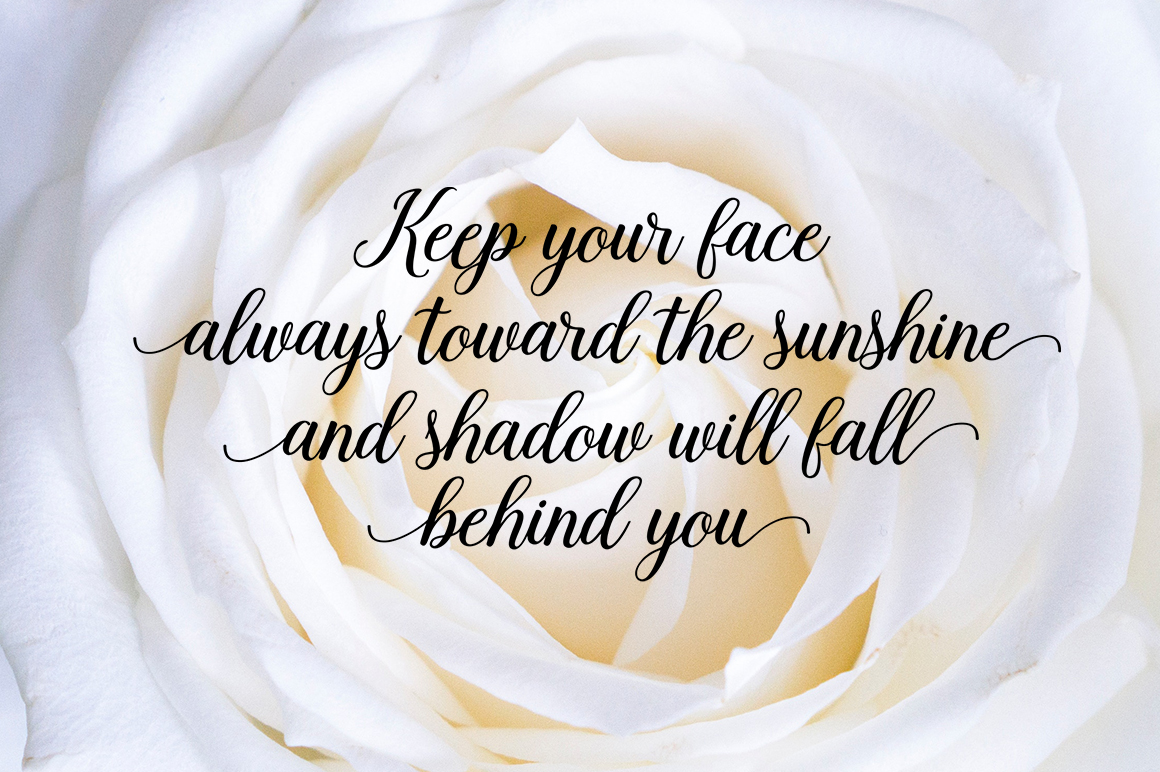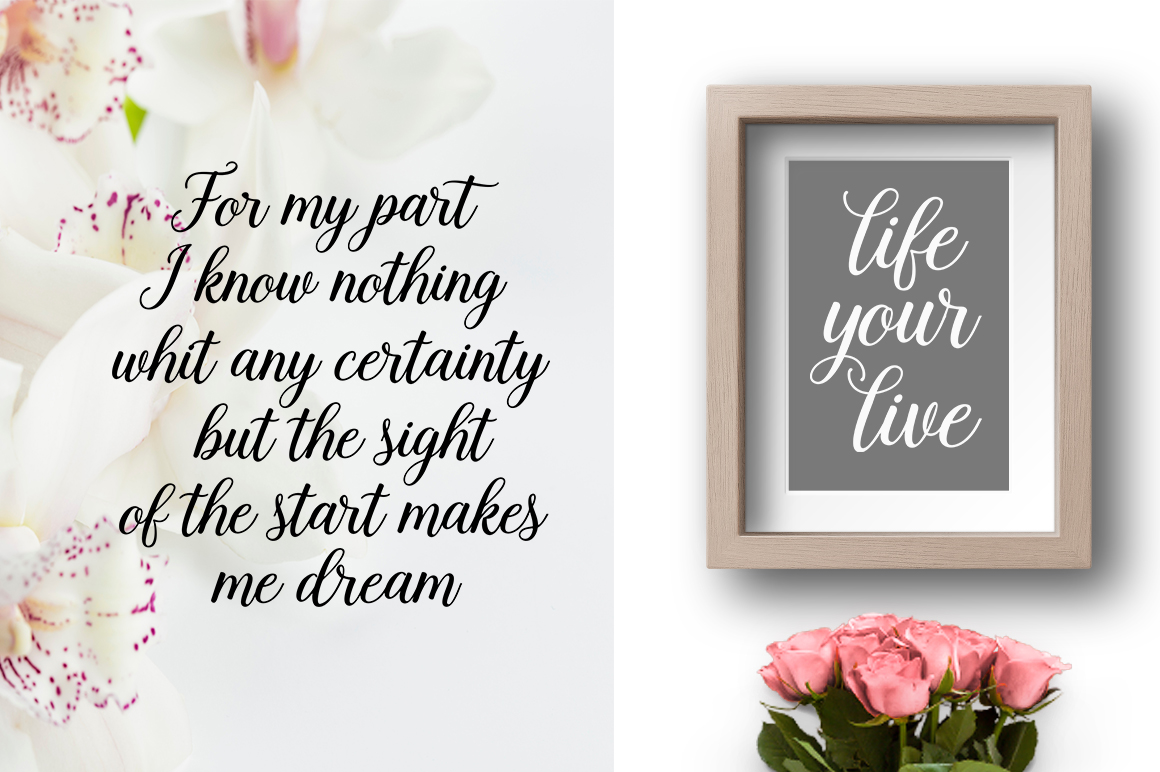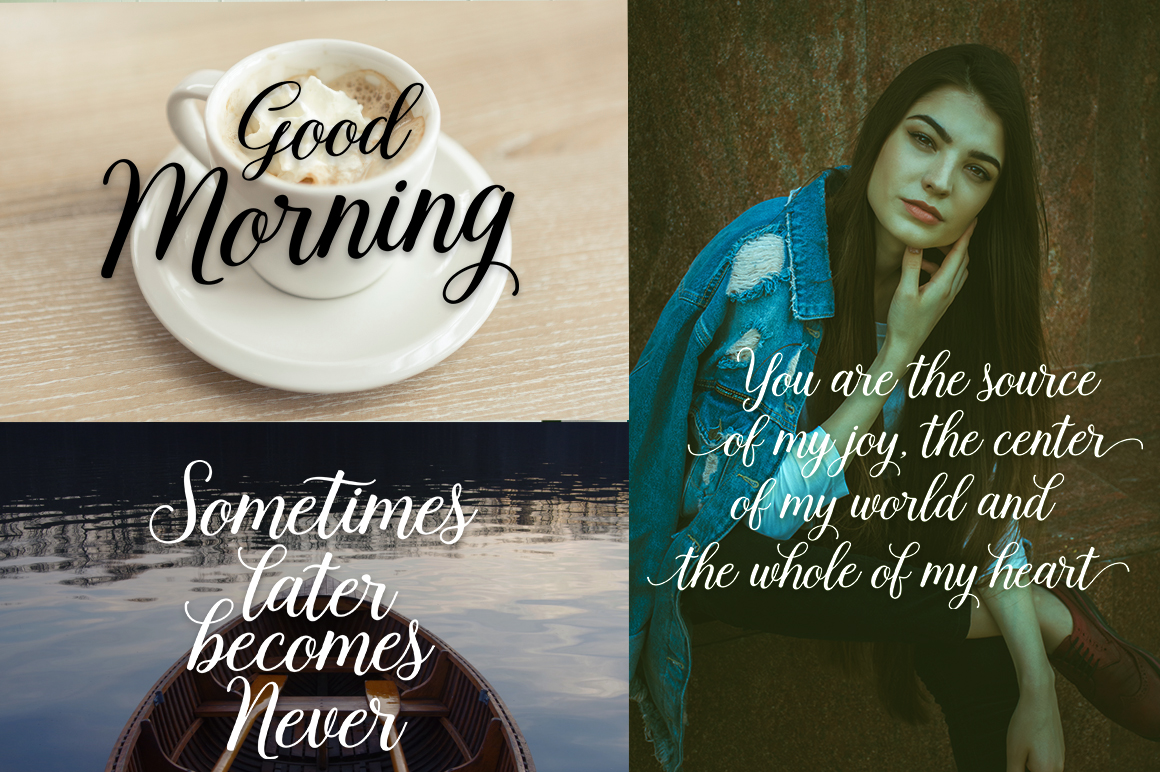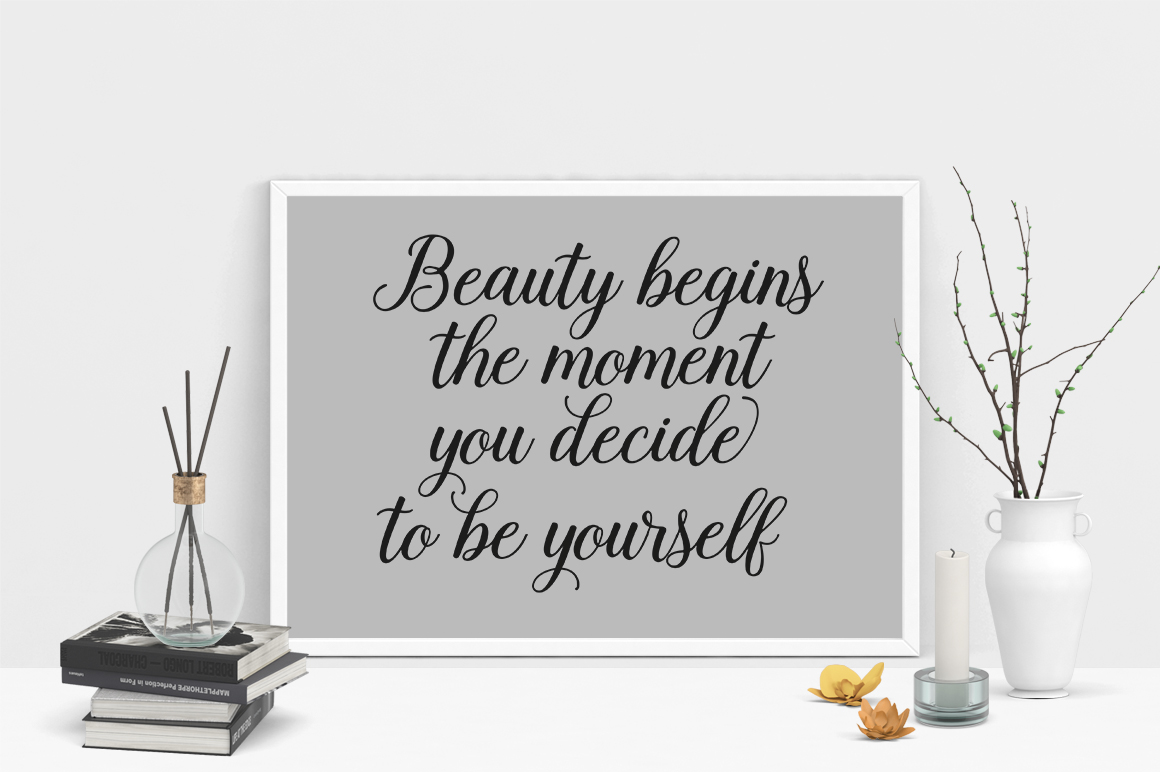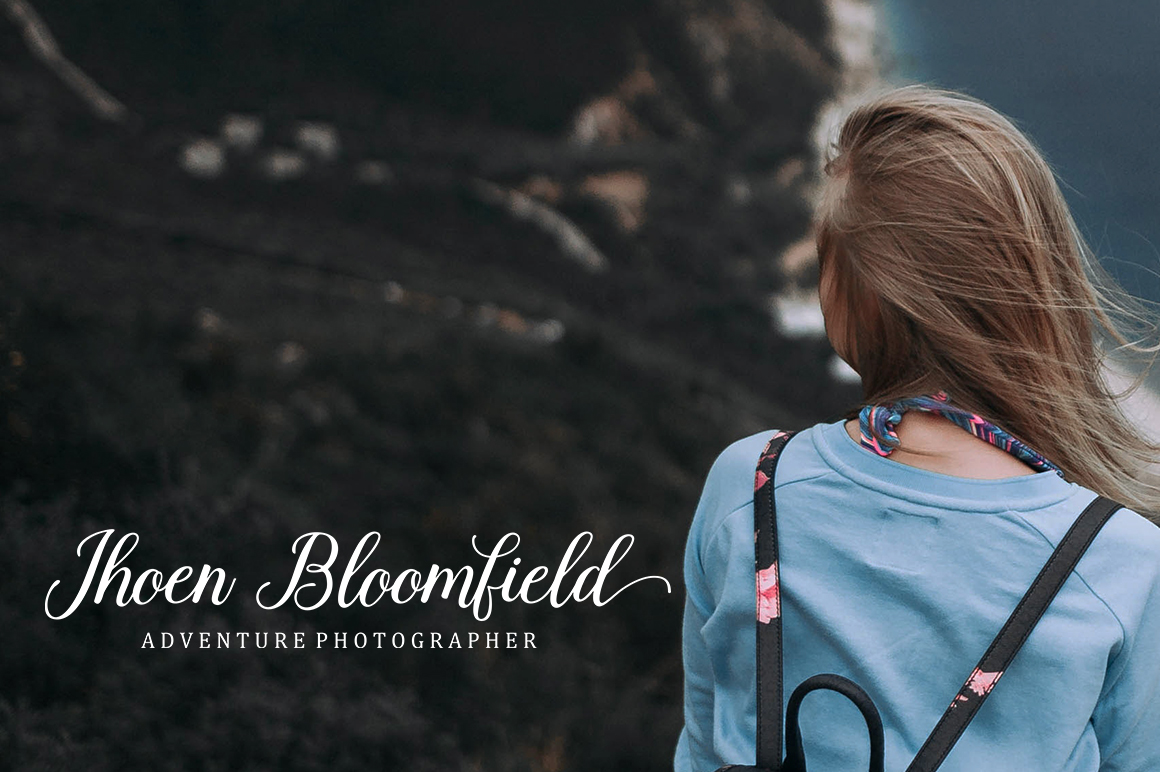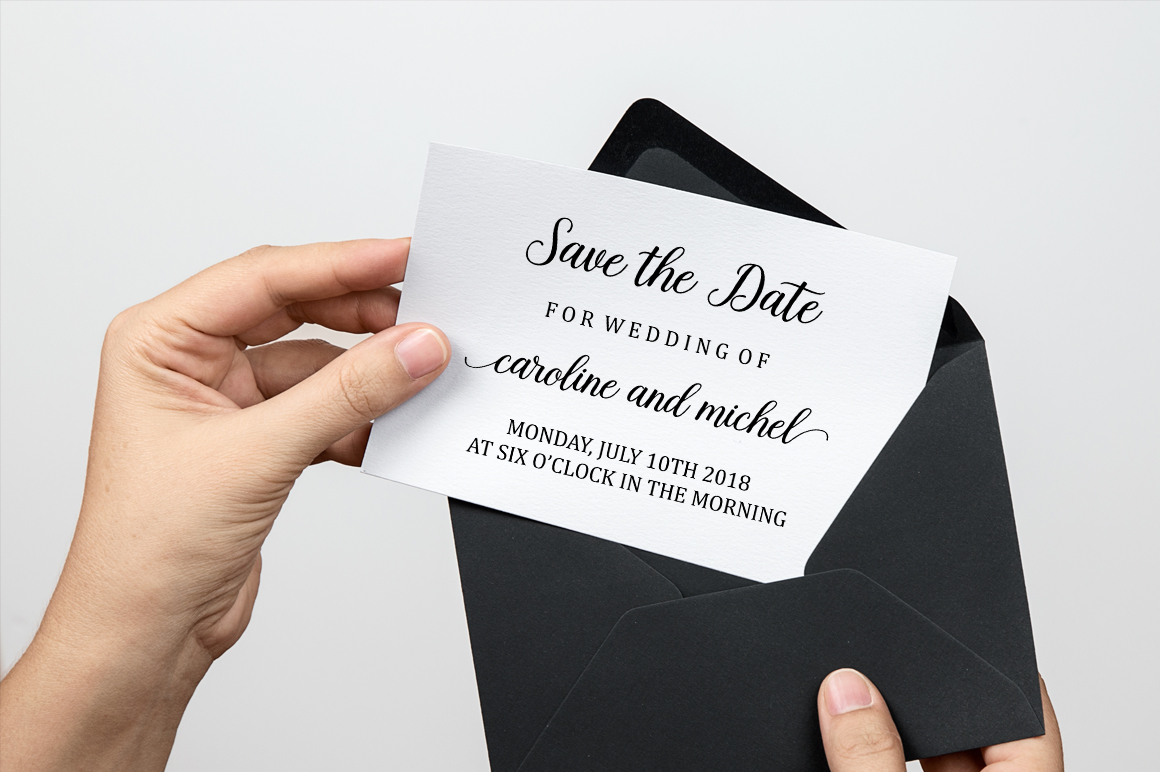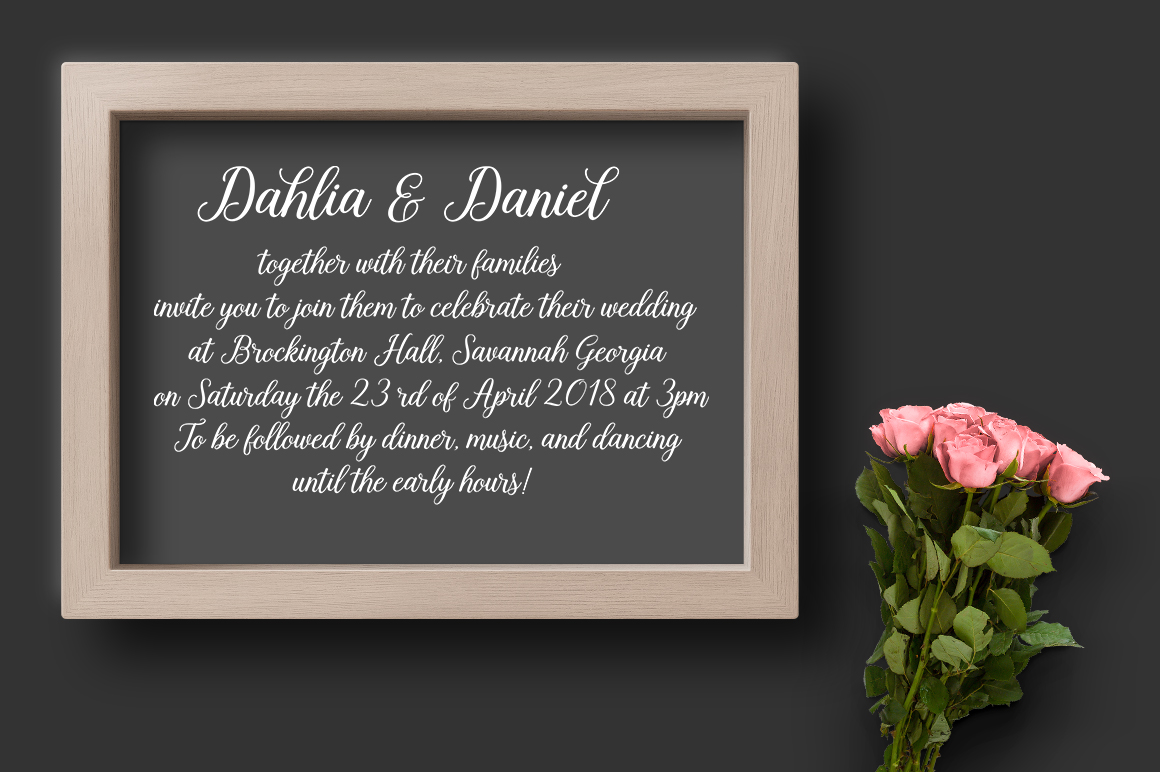
Bethanya Font
Bethanya is a modern calligraphic font. It’s a fluid font packed with stunning swashes.
It’s suitable for both corporate branding & personal projects.